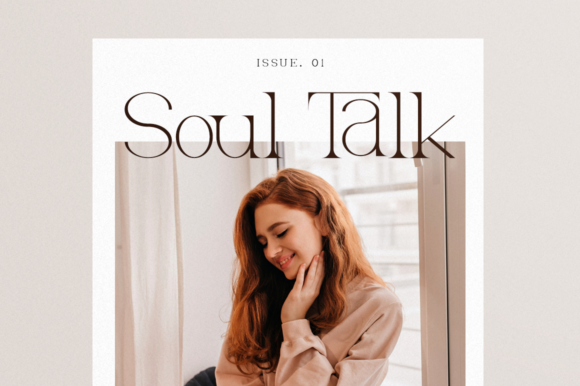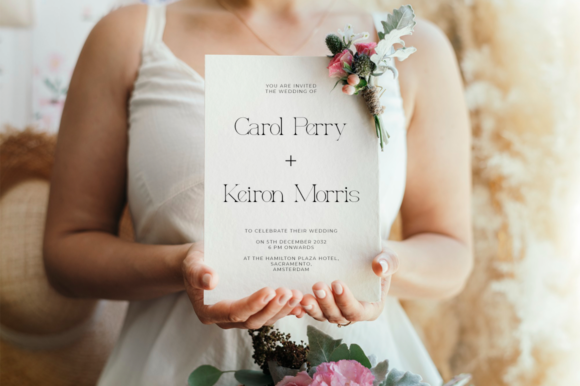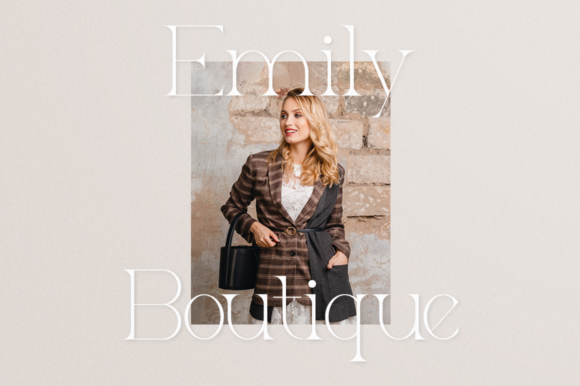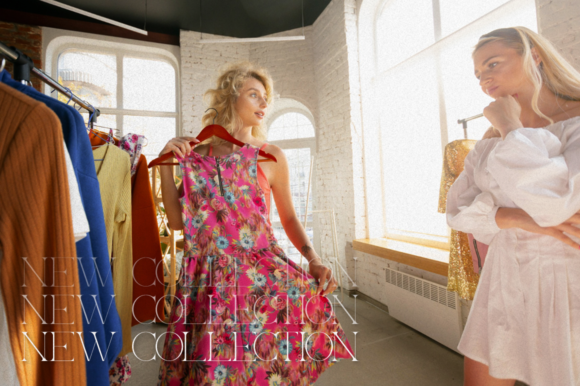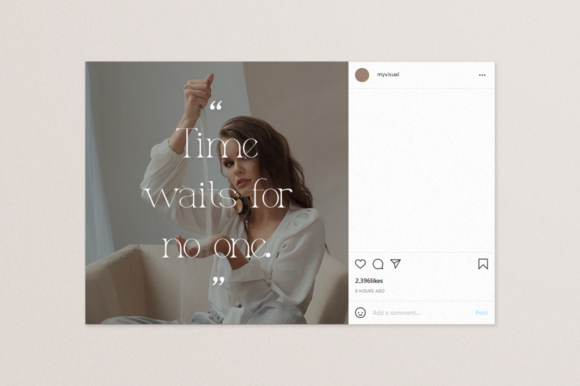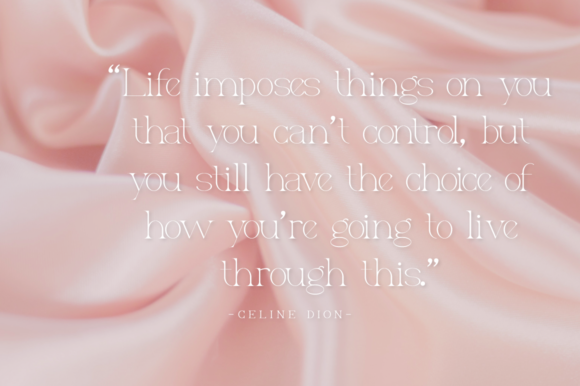
Discover the Elegance of Allegrand Font: Elevate Your Designs with Timeless Style
Are you on the lookout for a font that exudes sophistication, elegance, and a touch of classic charm? Look no further than Allegrand, a stylish and elegant serif font that is sure to capture your heart. With its incredibly distinct and timeless style, Allegrand is the perfect choice for designers and crafters seeking to create spectacular designs that stand out from the crowd.
The Allegrand Advantage: What Sets It Apart
Allegrand boasts a unique blend of traditional and modern elements, making it a versatile font suitable for a wide range of design projects. Here are just a few reasons why Allegrand stands out:
- Timeless Elegance: Allegrand’s classic serif design ensures that your designs will never go out of style. Its elegant lines and curves evoke a sense of sophistication and refinement, perfect for luxury brands, high-end products, and creative projects that demand a touch of class.
- Distinctive Character: Allegrand’s unique character set and stylish alternates allow you to add personality and flair to your designs. Whether you’re creating a logo, heading, or body text, Allegrand’s distinctive style is sure to make your design pop.
- Versatility: Allegrand is a highly versatile font, suitable for use in a variety of design applications, from print and digital media to branding and packaging. Its scalability and legibility ensure that it will look great in any context.
Why Designers and Crafters Love Allegrand
Allegrand has quickly become a favorite among designers and crafters, and it’s easy to see why. Here are just a few reasons why this font has captured the hearts of creative professionals:
- Easy to Read: Allegrand’s clear and legible design makes it perfect for body text, articles, and other written content. Its classic serif style ensures that readers will stay engaged and focused on your message.
- Highly Customizable: With a range of stylish alternates and a comprehensive character set, Allegrand offers endless opportunities for creative expression. Experiment with different styles, sizes, and colors to create unique and eye-catching designs.
Inspiration and Ideas: How to Use Allegrand in Your Designs
Ready to fall in love with Allegrand and take your designs to the next level? Here are a few ideas to get you started:
- Logo Design: Use Allegrand to create a sophisticated and memorable logo for your brand or business. Its unique character and elegant lines make it perfect for creating a lasting impression.
- Wedding and Event Design: Allegrand’s classic style and romantic flair make it ideal for wedding invitations, stationery, and event branding. Add a touch of elegance and sophistication to your designs with this beautiful font.
- Packaging and Product Design: Allegrand’s versatility and legibility make it perfect for use in packaging and product design. Use it to create eye-catching labels, brochures, and marketing materials that stand out on store shelves.
Conclusion: Experience the Timeless Elegance of Allegrand Font
In conclusion, Allegrand is a truly exceptional font that offers a unique blend of style, elegance, and versatility. Whether you’re a designer, crafter, or simply someone who appreciates beautiful typography, Allegrand is sure to capture your heart. With its incredibly distinct and timeless style, Allegrand is the perfect choice for creating spectacular designs that will leave a lasting impression. So why wait? Fall in love with Allegrand today and take your designs to new heights!